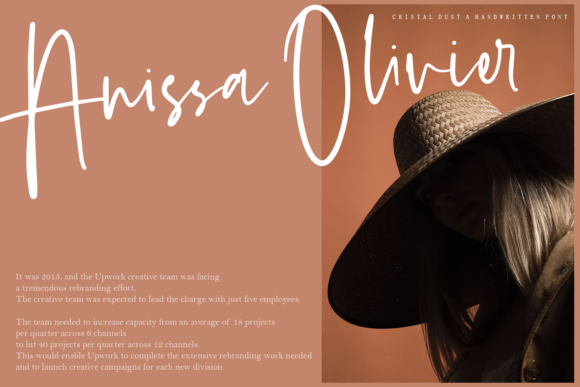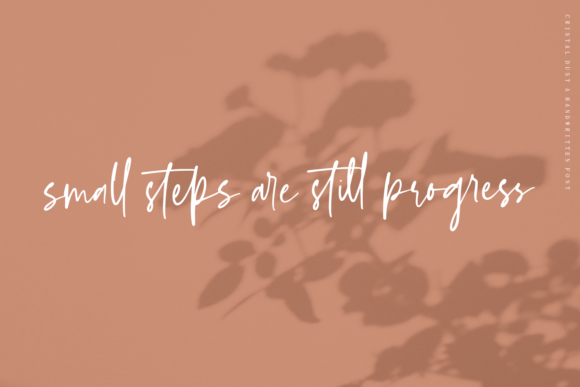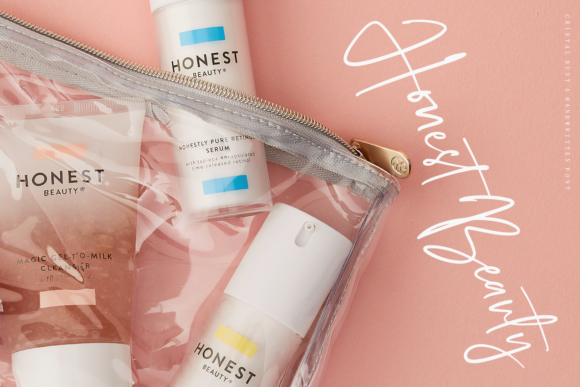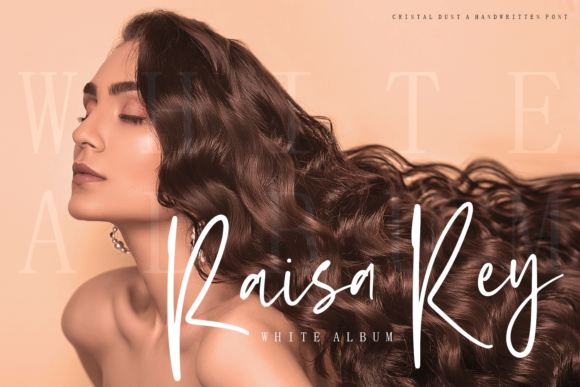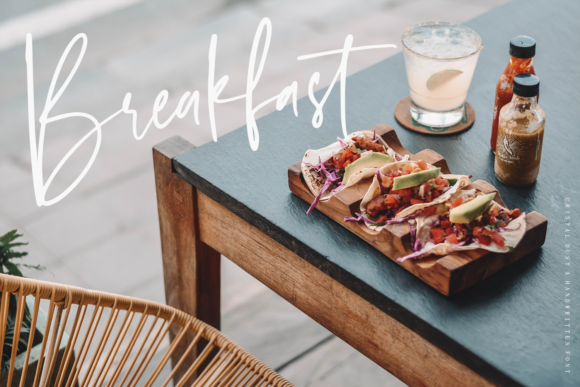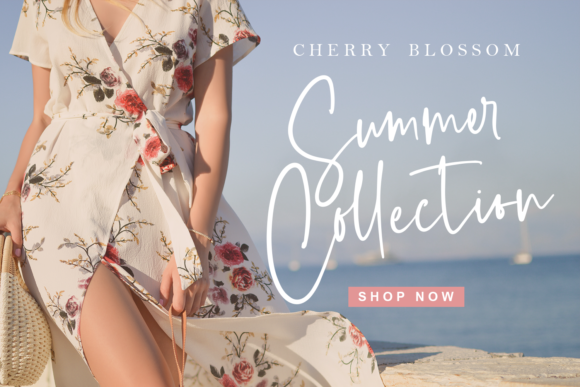
Introducing Crystal Dust Font: Elevate Your Designs with Elegance
Are you tired of using the same old fonts in your designs? Look no further! Crystal Dust Font is here to take your projects to the highest levels with its elegant and flowing handwritten style. This beautiful font is sure to capture your heart and become your new go-to for all your design needs.
What is Crystal Dust Font?
Crystal Dust Font is a stunning handwritten font that exudes elegance and sophistication. Its flowing lines and curves give it a unique and eye-catching appearance that’s perfect for a wide range of design projects. Whether you’re working on a logo, branding, packaging, or social media graphics, Crystal Dust Font is sure to make your designs stand out.
Features of Crystal Dust Font
- Elegant and flowing handwritten style: Crystal Dust Font features a beautiful, cursive script that’s perfect for creating elegant and sophisticated designs.
- Unique and eye-catching: The font’s unique lines and curves make it stand out from other fonts, ensuring your designs will grab attention.
- Versatile: Crystal Dust Font can be used for a wide range of design projects, from logos and branding to packaging and social media graphics.
- Easy to read: Despite its elegant style, Crystal Dust Font is easy to read, making it perfect for body text and headlines.
Who is Crystal Dust Font for?
Crystal Dust Font is perfect for designers, crafters, and anyone looking to add a touch of elegance to their projects. Whether you’re a professional designer or a DIY enthusiast, this font is sure to become a favorite in your collection.
- Use it for headlines and titles: Crystal Dust Font is perfect for creating eye-catching headlines and titles that will grab attention.
- Pair it with other fonts: Experiment with pairing Crystal Dust Font with other fonts to create a unique and interesting look.
- Use it for branding and packaging: Crystal Dust Font is perfect for creating elegant and sophisticated branding and packaging designs.
Why Choose Crystal Dust Font?
There are many fonts available, but Crystal Dust Font stands out from the rest. Here are just a few reasons why you should choose Crystal Dust Font for your next project:
- Unique and exclusive: Crystal Dust Font is a one-of-a-kind font that’s sure to make your designs stand out.
- High-quality: The font is carefully crafted to ensure it’s of the highest quality and looks great in any design.
- Elegant and sophisticated: Crystal Dust Font exudes elegance and sophistication, making it perfect for high-end designs.
| Font Name | Crystal Dust Font |
| Author | Geranium.co |
In conclusion, Crystal Dust Font is a beautiful and elegant handwritten font that’s perfect for designers and crafters looking to elevate their projects to the highest levels. With its unique and eye-catching style, versatility, and ease of use, Crystal Dust Font is sure to become a favorite in your collection. So why wait? Fall in love with Crystal Dust Font and bring your projects to life with its elegance and sophistication!